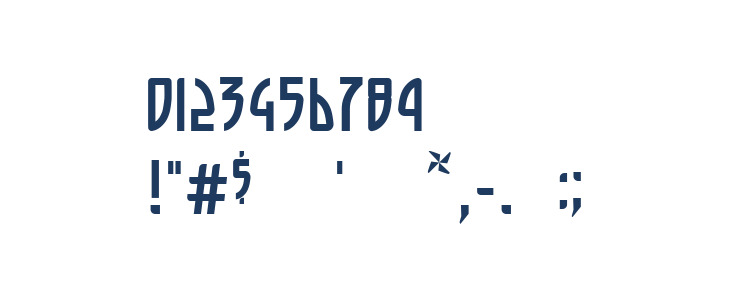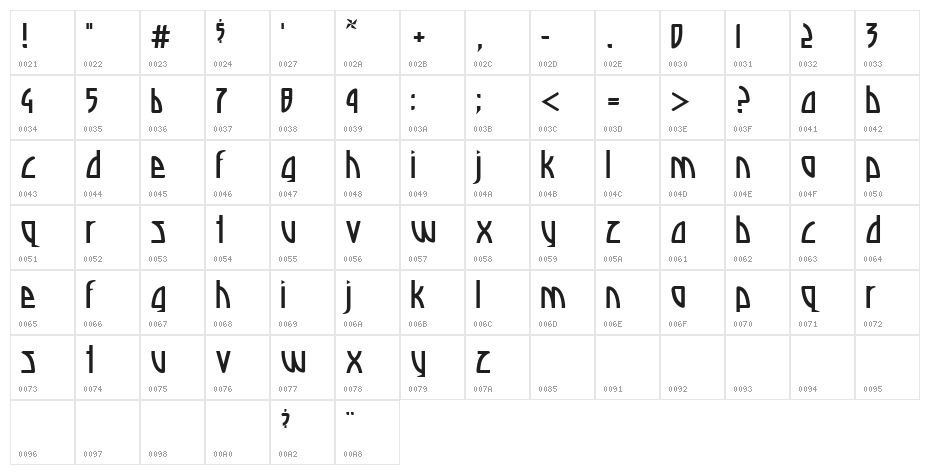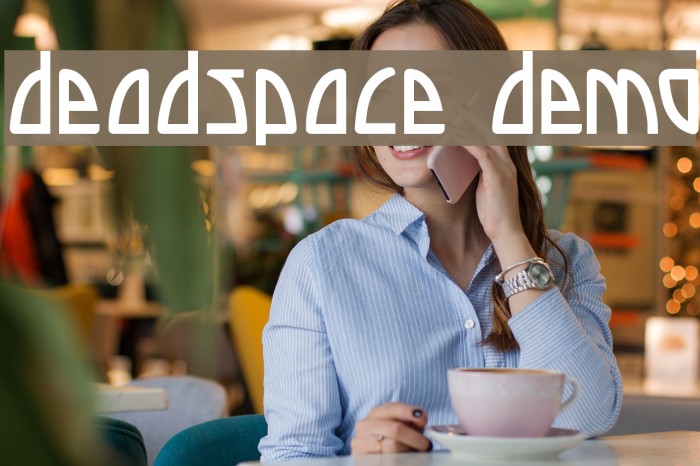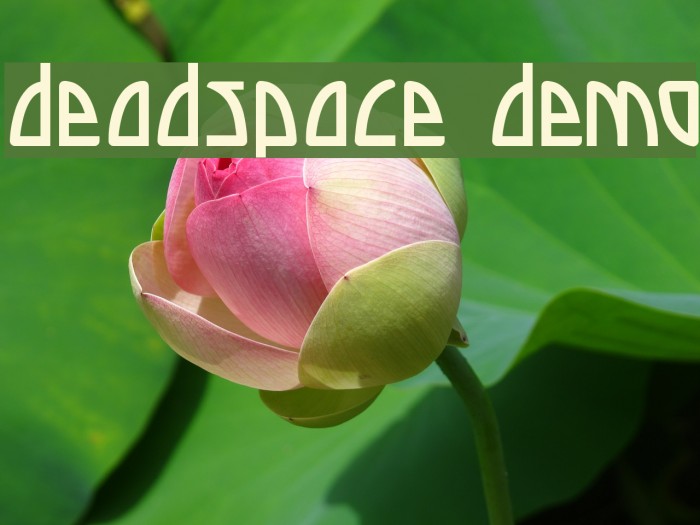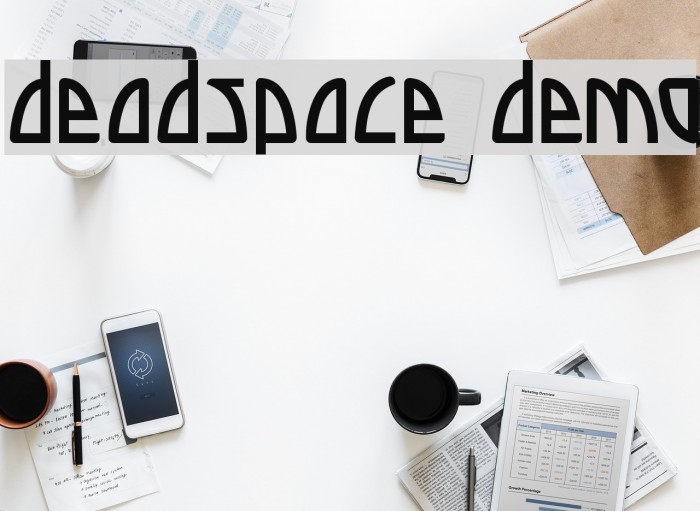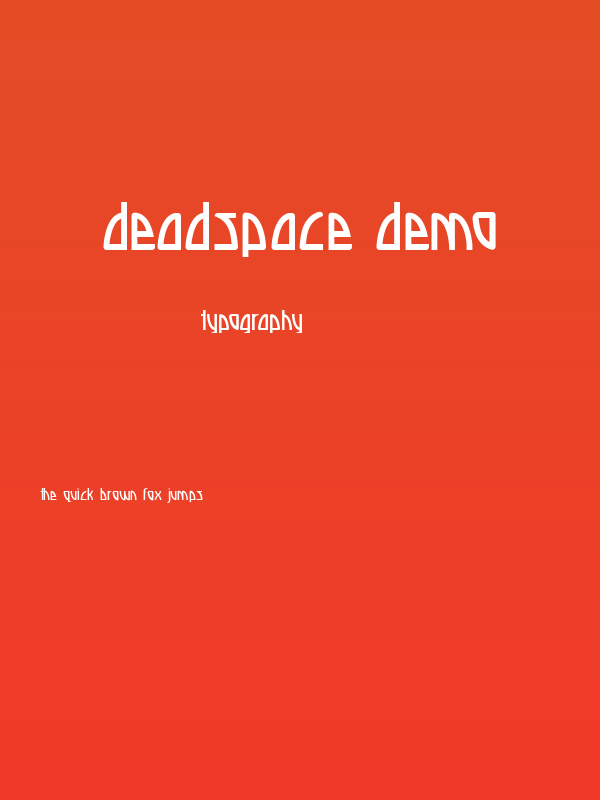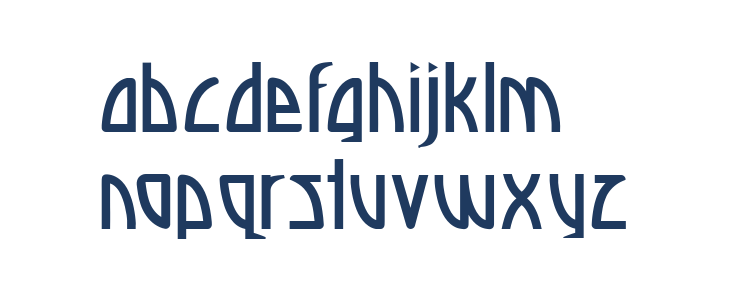
Deadspace DEMO Font
Deadspace DEMO Description
This font features a futuristic and geometric design, characterized by its unique and angular letterforms. The uppercase and lowercase letters share a consistent style, with smooth curves and sharp edges that create a dynamic and modern appearance. The numerals are distinct and maintain the geometric theme, providing a cohesive look across all characters. Special characters are designed with the same attention to detail, ensuring versatility in various design applications. The overall aesthetic is bold and eye-catching, making it suitable for projects that require a contemporary and innovative touch.
| Proposed Projects | Ideal for sci-fi themed designs, video game interfaces, technology branding, and modern advertising campaigns. |